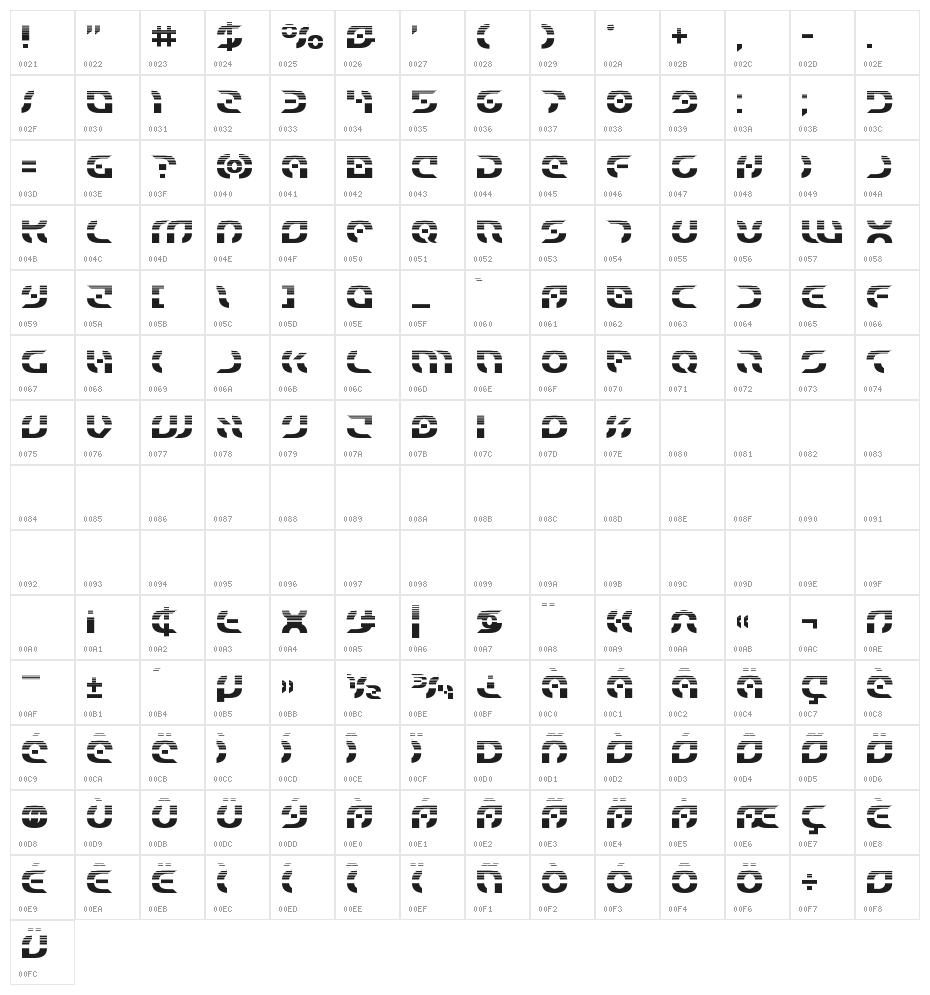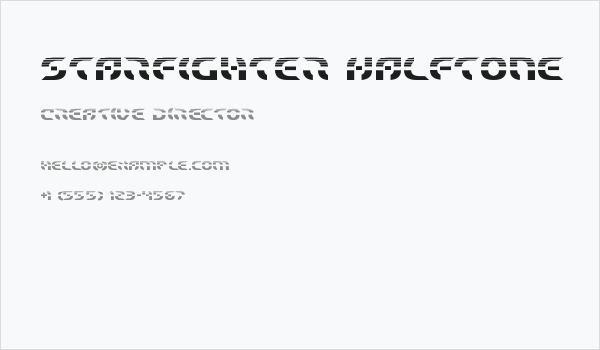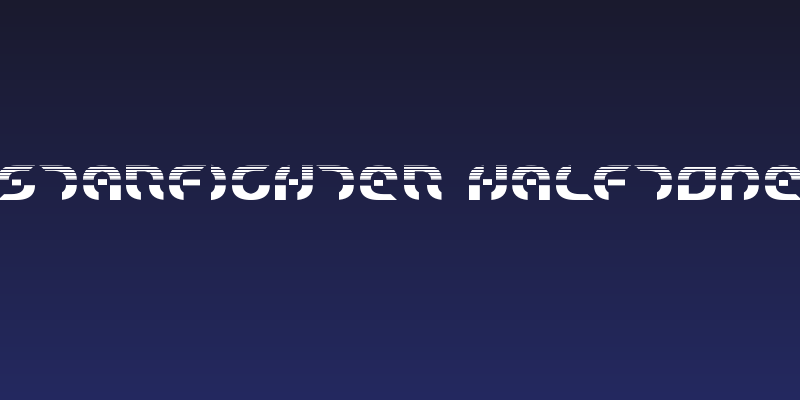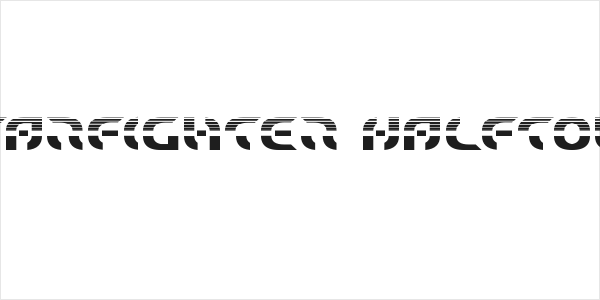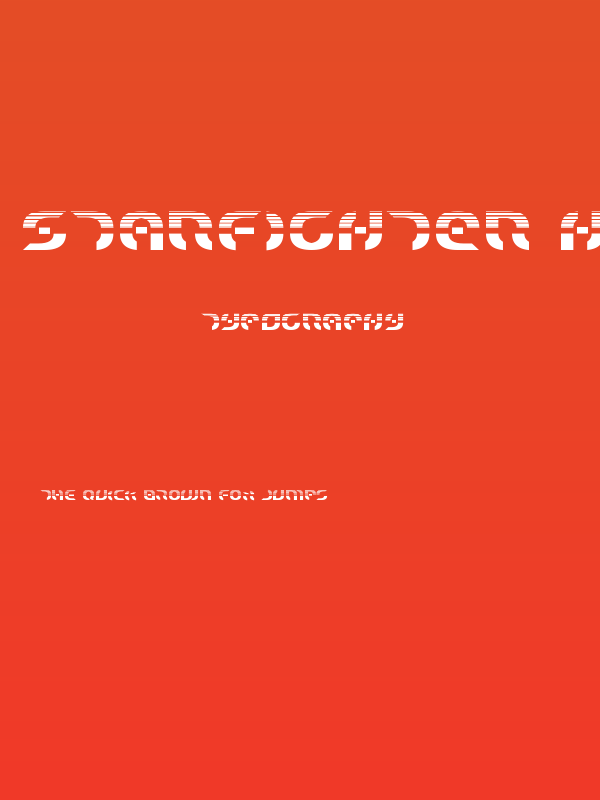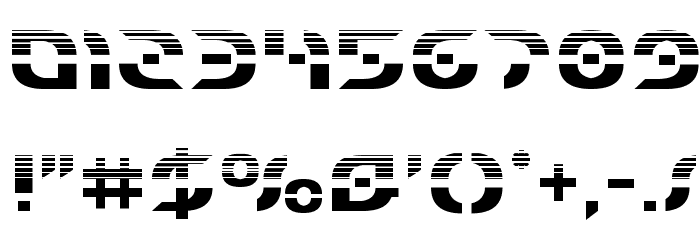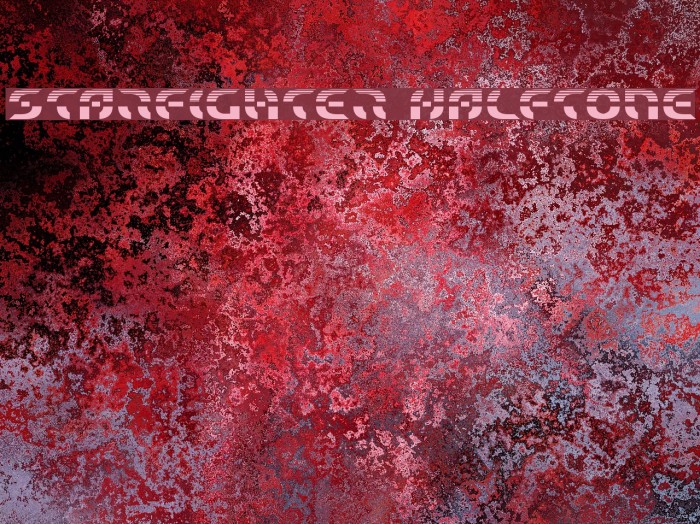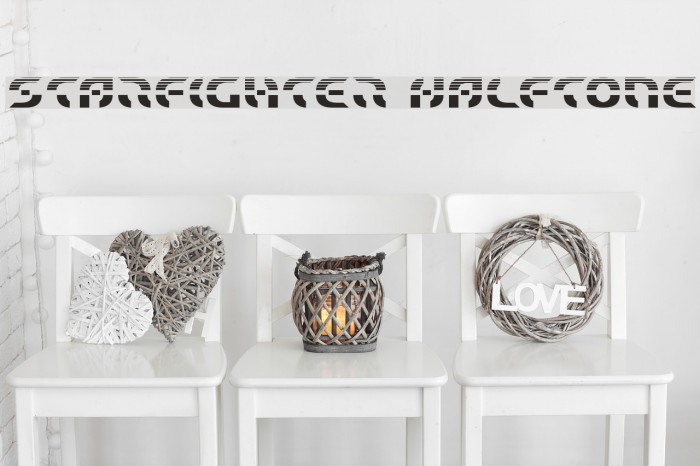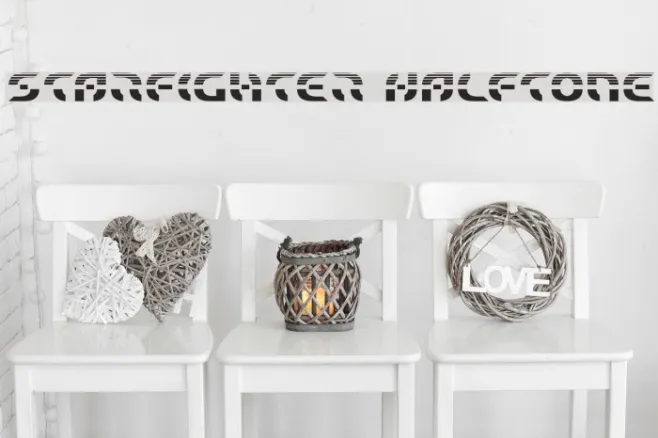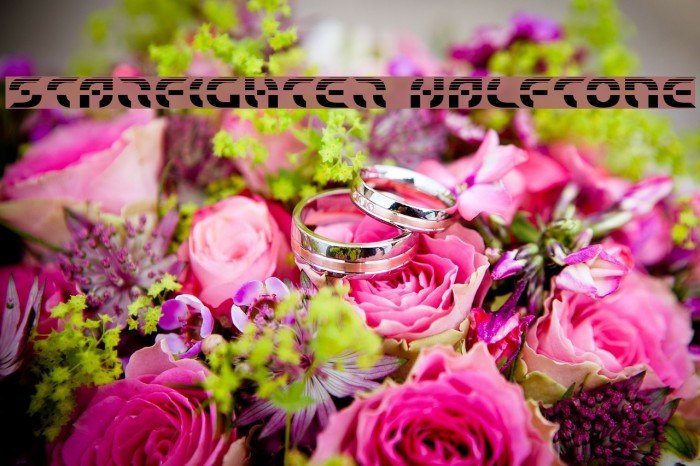
Starfighter Halftone Font
Starfighter Halftone Description
This font features a futuristic and dynamic design, characterized by its halftone effect that creates a sense of movement and energy. The letters are bold and geometric, with a unique pattern of horizontal lines that give it a distinctive, high-tech appearance. The uppercase and lowercase letters maintain a consistent style, while the numbers and special characters integrate seamlessly with the overall design. This font is ideal for projects that require a modern and edgy look, such as technology branding, sci-fi themed designs, or video game graphics.
| Proposed Projects | Ideal for technology branding, sci-fi designs, video game graphics, and modern posters. |